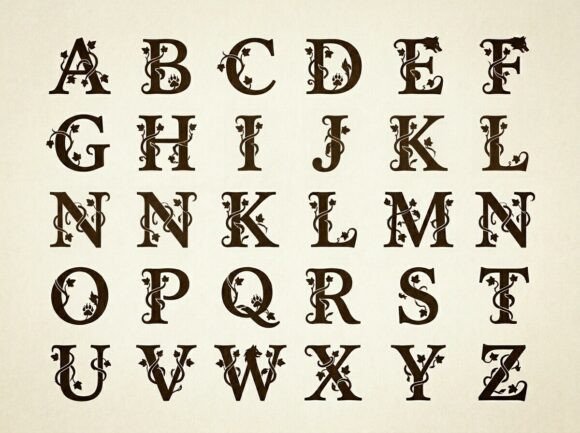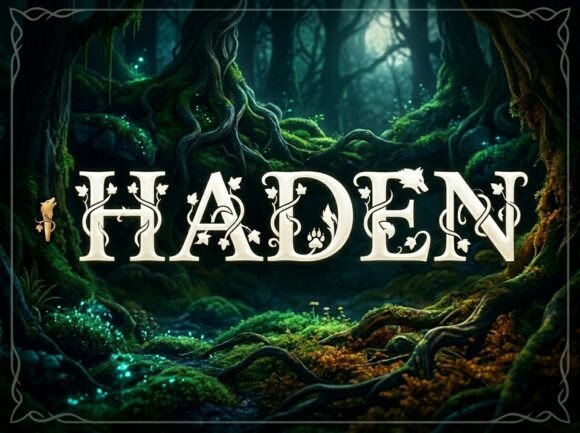
Introducing Haden Font: A Stunning Decorative Display Font
Are you tired of using the same old fonts for your designs? Do you want to make a statement and stand out from the crowd? Look no further than Haden Font, a unique and artistic decorative display font that’s sure to turn heads. In this article, we’ll take a closer look at what makes Haden Font so special and how it can elevate your designs to the next level.
Haden Font is a stunning decorative display font designed to be the center of attention. With its unique artistic elements and strong visual personality, this font is perfect for creators who want to break away from the ordinary. Whether you’re working on a bold headline, artistic logo, or creative packaging, Haden Font is the perfect choice. Its versatility and professional finish make it an excellent addition to any design project.
Before you make a purchase, it’s essential to note that Haden Font is an ALL-CAPS (Uppercase Only) display typeface. This means that it does not include lowercase letters. It’s specifically designed for high-impact headlines, logos, and decorative initials where every letter is a work of art.
Haden Font is perfect for designers and crafters who want to add a touch of elegance and sophistication to their work. With its unique and artistic design, this font is ideal for:
- Bold Headlines – Make a statement with Haden Font’s bold and eye-catching design.
- Artistic Logos – Create a lasting impression with a custom logo that showcases your brand’s personality.
- Creative Packaging – Stand out on store shelves with Haden Font’s unique and decorative design.
Tips for Using Haden Font
To get the most out of Haden Font, here are some tips to keep in mind:
- Use it sparingly – Haden Font is a decorative display font, so use it sparingly to make a maximum impact.
- Pair it with a simple font – Pair Haden Font with a simple font to create a beautiful contrast and add visual interest to your design.
- Experiment with colors and textures – Haden Font looks great with bold colors and textures, so don’t be afraid to experiment and find the perfect combination for your design.
In conclusion, Haden Font is a stunning decorative display font that’s perfect for designers and crafters who want to make a statement. With its unique artistic elements and strong visual personality, this font is sure to turn heads. Whether you’re working on a bold headline, artistic logo, or creative packaging, Haden Font is the perfect choice. So why wait? Download Haden Font today and take your designs to the next level!